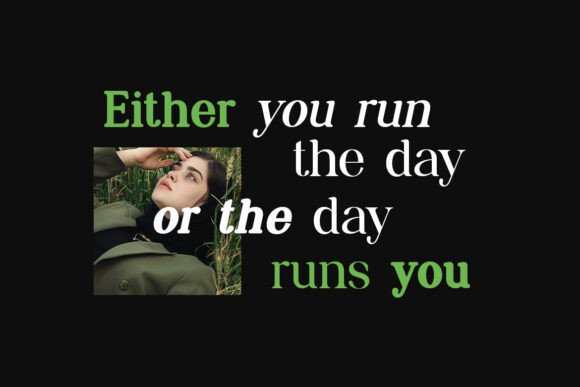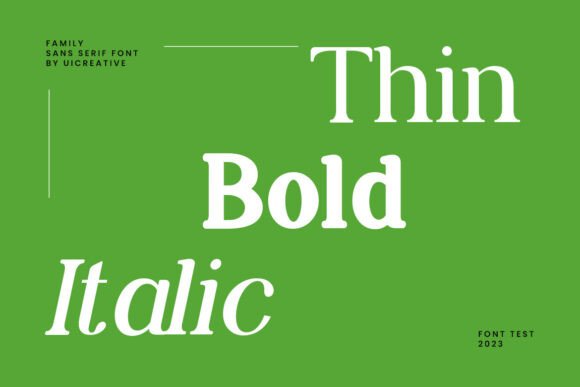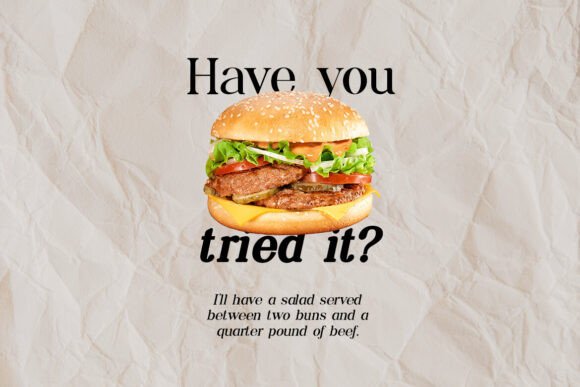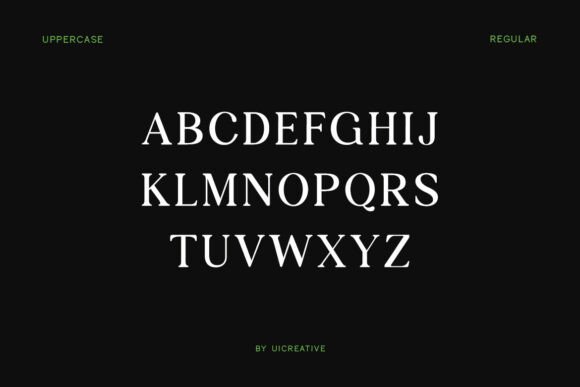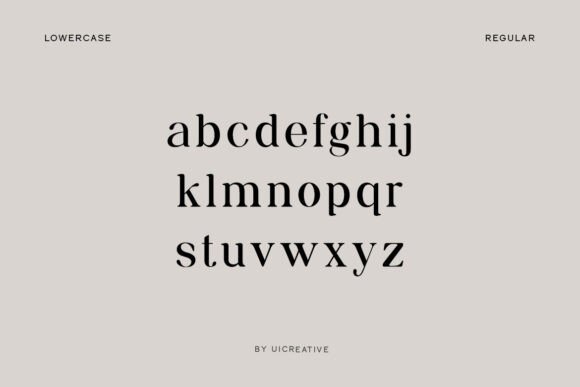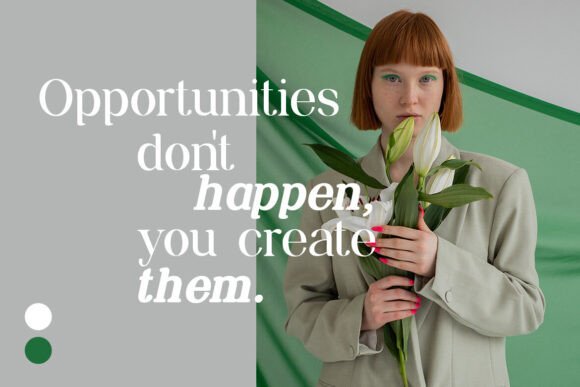
Introduction to Preparatori Font
As designers, we’ve all been there – staring at a blank page, trying to find the perfect font to bring our creative project to life. It’s that moment of hesitation, wondering if we’ve chosen the right design resource, that can make or break the entire aesthetic of our work. But what if we told you about a font that’s not only stylish but also versatile, suitable for a wide range of projects?
Enter the Preparatori Font, a modern serif family font that exudes elegance and sophistication. With its beautiful, classy feel, this font is a valuable addition to any designer’s toolkit. Whether you’re working on a signature, stationery, or logo design, the Preparatori Font is sure to impress. Plus, with its transparent background option, you can easily integrate it into your designs without any distractions.
Key Features of Preparatori Font
- High-quality design resource with a transparent background, ideal for creative projects.
- Includes a comprehensive set of characters, making it suitable for a wide range of applications.
- Designed with a focus on readability and aesthetics, ensuring it looks great on any device.
Honest Review: Preparatori Font
As a designer, I’m always on the lookout for high-quality fonts that can elevate my creative projects. I recently stumbled upon Preparatori Font, and I must say it’s a great addition to my design resource library.
- ✨ The font has a unique, elegant design that works well for titles, headings, and even body text.
- ✨ The transparent background option allows for seamless integration with other design elements.
- ✨ The font comes in a variety of weights and styles, making it a versatile choice for different creative projects.
- ⚠️ The font may not be suitable for very large-scale projects, as it can become difficult to read at certain sizes.
- ⚠️ The font family is relatively small, so it may not be as comprehensive as some other font collections.
Overall, I’m quite impressed with Preparatori Font. Its unique design and versatility make it a great choice for designers working on creative projects. While it may have some limitations, it’s a solid addition to any design resource library. If you’re looking for a high-quality font for your next project, I’d definitely recommend giving Preparatori Font a try.
Preparatori Font
Preparatori Font is a free design resource ideal for creative projects requiring high-quality typography. With a transparent background, this font can be easily integrated into various digital platforms.
Preparatori Font is suitable for various creative projects, including:
- Website headers and footers
Tips for Getting the Most Out of Preparatori Font
To maximize the effectiveness of Preparatori Font, use it in combination with other design elements, such as images and graphics. Experiment with different font sizes, colors, and styles to create a unique visual identity.
Alternatives to Preparatori Font
Lato Font is a beautiful, high-quality sans-serif typeface that’s perfect for creative projects that require a clean and elegant design. It’s available for free download and features a transparent background, making it ideal for use on various design resources. When to use: For projects that require a sophisticated and professional feel. Comparison to Preparatori Font: Lato Font is more elegant and sophisticated, making it a better choice for corporate designs.
Open Sans Font is a versatile, high-quality sans-serif typeface that’s perfect for creative projects that require a clean and modern design. It’s available for free download and features a transparent background, making it ideal for use on various design resources. When to use: For projects that require a simple and easy-to-read design. Comparison to Preparatori Font: Open Sans Font is more versatile and easy to read, making it a better choice for projects that require a clear and concise design.